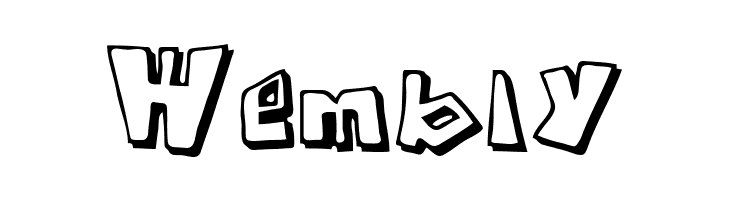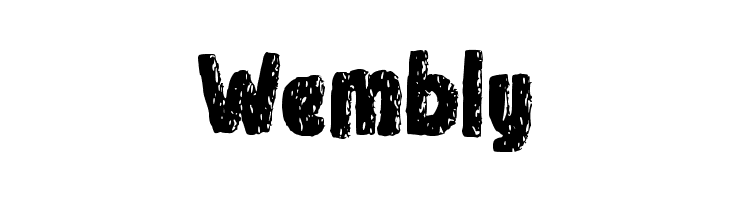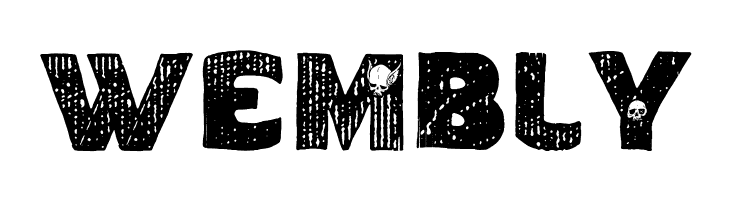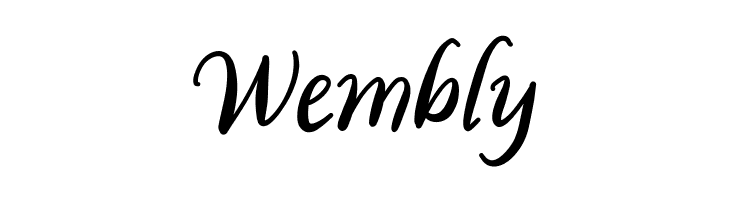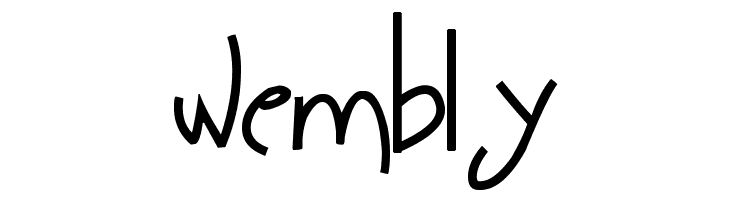
Caviar Dreams Italic Font
Font by Lauren Thompson - www.nymfont.com
A sleek, modern italic font with clean lines and balanced proportions.
AntiChrist SuperstarSW Font
A gothic, rune-like font with sharp, angular characters and mystical symbols.
Caveman Bold Font
A bold, hand-drawn font with a primitive and playful style.
Jazzy Caveman Font
Font by Jonathan Harris - www.tattoowoo.com
A bold, jagged font with sharp angles and an energetic, primitive style.
Caveman Regular Font
A playful, rugged font with a hand-drawn, graffiti-like style.
Cavilant Font
A bold, modern sans-serif font with geometric lines and strong presence.
US Flag Font
Bold, modern icons of the US flag and map.
Blue Card Font
Font by Phillip Cavette
A playful, bold font with a hand-drawn, whimsical style.
Club Fluffy Font
A whimsical, star-adorned font with playful, hand-drawn letterforms.
Chain Crank Font
A bold, industrial-themed font with sharp angles and gear-like embellishments.
Palimpus Font
Font by Phillip Cavette
A playful and quirky font with tall, narrow letterforms and uneven strokes.
CType Font
A futuristic, geometric font with abstract letterforms.
Ventilate AOE Font
Font by Astigmatic One Eye Typographic Institute - Brian J. Bonislawsky - astigmatic.com
A bold, modern font with a unique horizontal line pattern for a dynamic look.
Butterfly Chromosome Font
A playful, organic font with bold, fluid shapes and dynamic curves.
Caviar de Diane Font
Font by Maelle.K - Thomas Boucherie
An elegant script font with intricate flourishes and a refined style.
20thCenturyTwo Font
A playful collection of doodle-like illustrations with a whimsical, childlike style.
CombiNumerals Open Font
A modern, geometric font with rectangular outlines and a minimalistic style.
Stays In The Cave! Font
A playful, handwritten font with irregular, organic letterforms.
Midnight Junk Yard Font
A quirky, playful font with uneven, hand-drawn letterforms.
Cave Story Regular Font